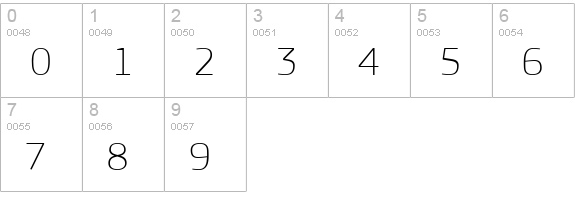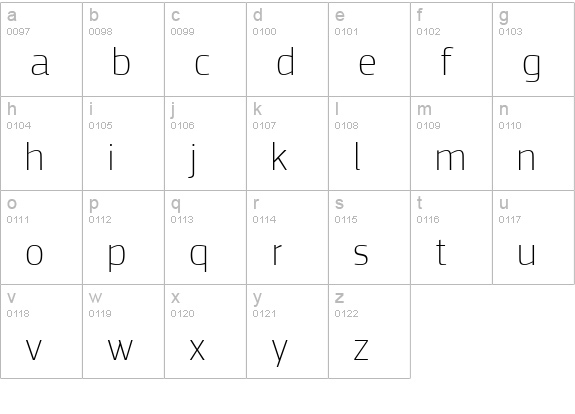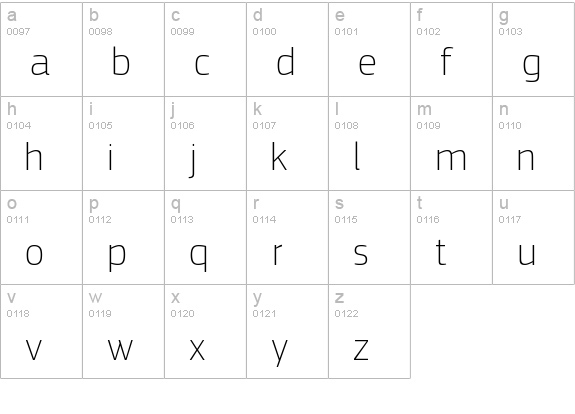
PFSquareSansPro-Thin is a delicate, low-contrast variant in the PFSquareSansPro typeface family \xE2\x80\x94 well suited to fashion editorial, minimal branding, and high-contrast display.
PFSquareSansPro-Thin font is a sleek and modern typeface that exudes elegance and sophistication. With its thin strokes and clean lines, this font is perfect for creating a minimalist and refined look in your designs. Whether you're working on branding, editorial projects, or web design, PFSquareSansPro-Thin font will add a touch of class to your work. The best part is that PFSquareSansPro-Thin font is completely free to download at FontsMarket.com. You can easily access this stylish font and enhance your projects with its contemporary aesthetic. Don't miss out on the opportunity to elevate your designs with the timeless beauty of PFSquareSansPro-Thin font. Download it now and let your creativity shine!